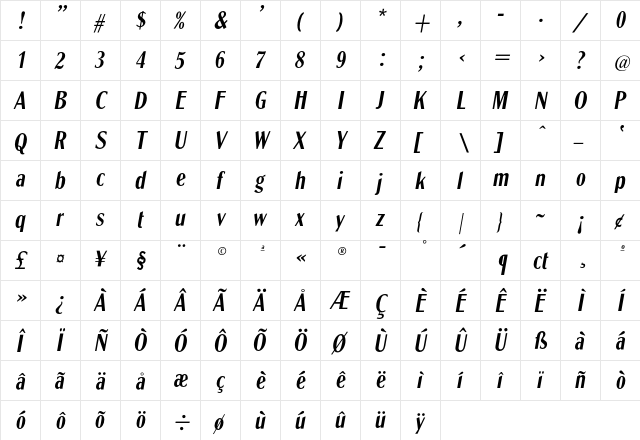
GlobeCondL-Oblique Regular Font Preview
Design Context for GlobeCondL-Oblique Typeface
GlobeCondL-Oblique takes a measured approach to typography — its balanced proportions and neutral character make it a reliable workhorse for both digital and print work. Its italic angle brings a sense of urgency and motion to the letterforms. The condensed width makes it efficient for tight spaces without sacrificing legibility.
Pro Tip: Use GlobeCondL-Oblique for emphasis, pull quotes, and subheadings where its slanted energy can add rhythm to the layout.